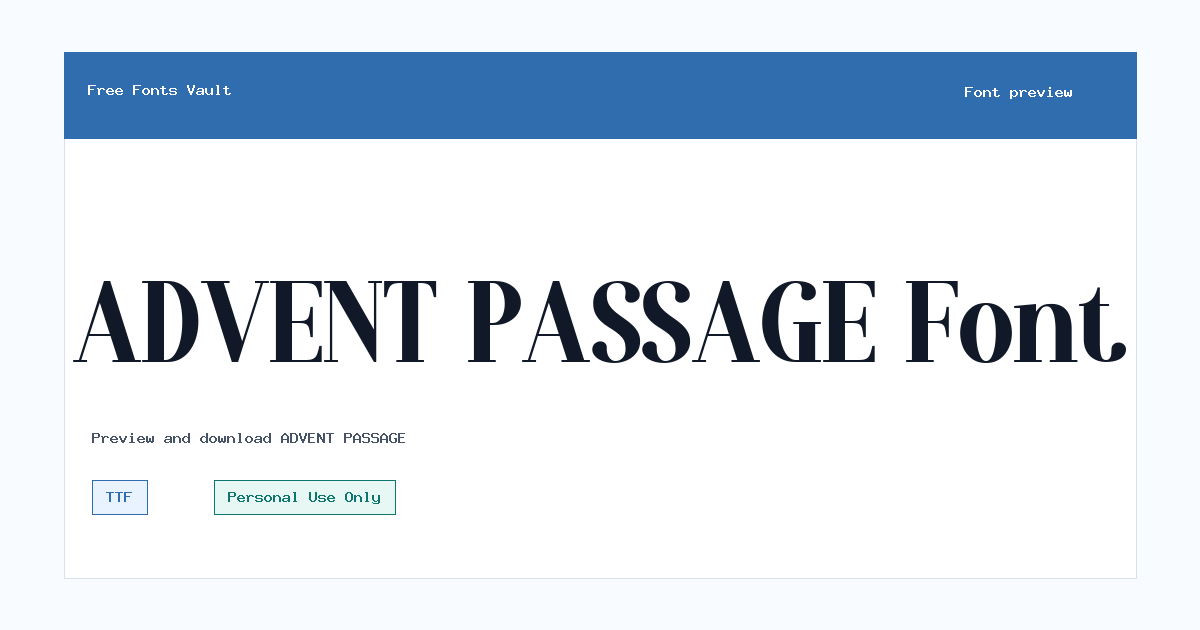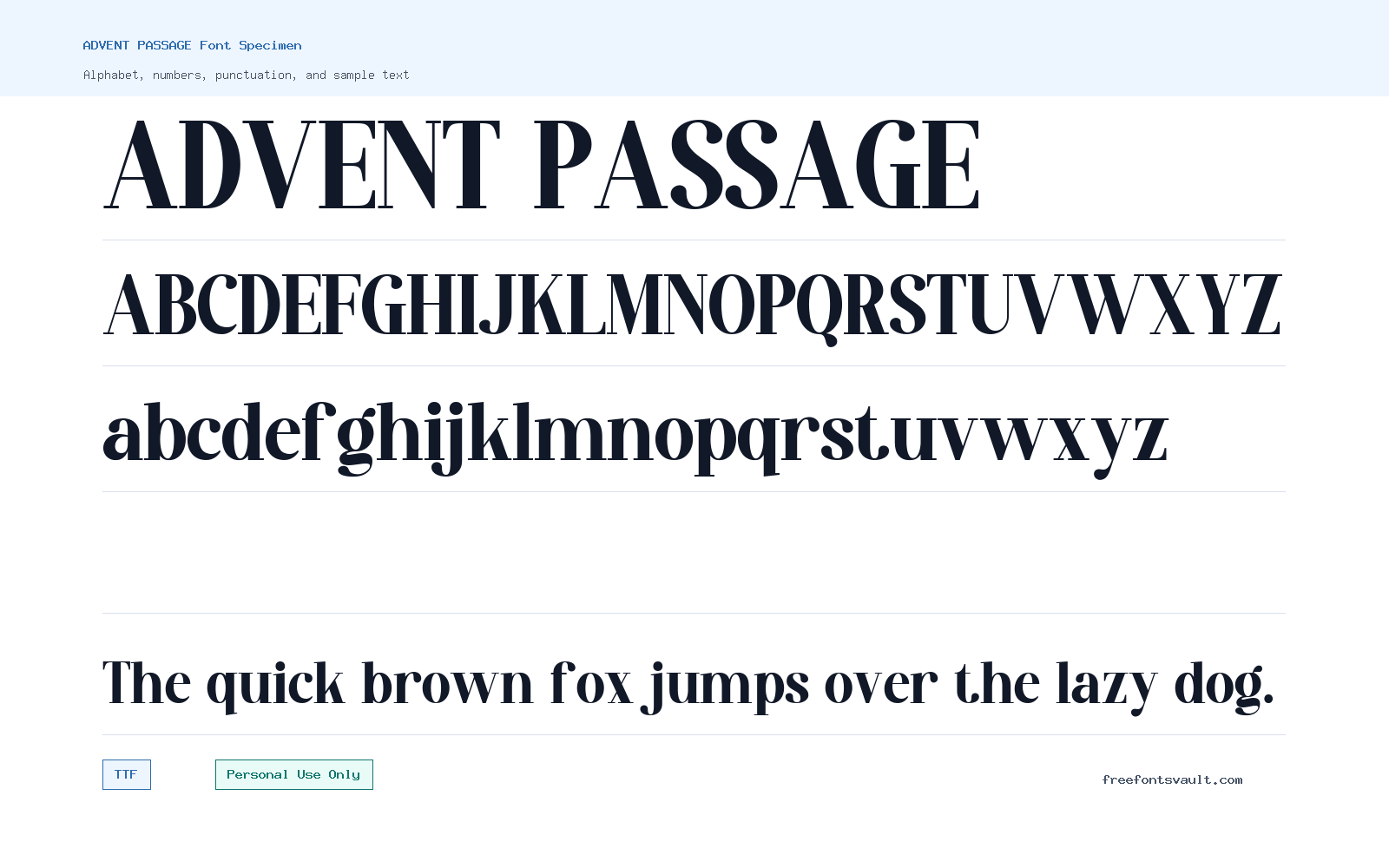
ADVENT PASSAGE
ADVENT PASSAGE is a personal-use serif font by FLAWLESSANDCO. It is offered here in a regular TTF style, making it easy to test in the preview tool before you use it in a design draft, title layout, or personal creative project.
ADVENT PASSAGE has the classic structure of a serif typeface, so it is best approached as a display or text accent font rather than a plain utility face. Use the preview box to check how its capitals, spacing, punctuation, and longer words behave at different sizes. Serif fonts can look polished in titles, invitations, quote graphics, labels, and editorial-style layouts, but each design handles small text differently, so it is worth testing your exact wording before downloading.
- Personal invitation drafts, quote graphics, mood boards, and title treatments
- Short headings, name layouts, labels, and non-commercial design experiments
The designer name is listed as FLAWLESSANDCO. No foundry name or official designer website is listed in the font listing.
Who designed ADVENT PASSAGE?
The designer is listed as FLAWLESSANDCO.
What is ADVENT PASSAGE best used for?
It is best tested for short personal-use designs such as headings, invitations, quote images, labels, and decorative title text. Use the preview to decide whether it works for your exact words.